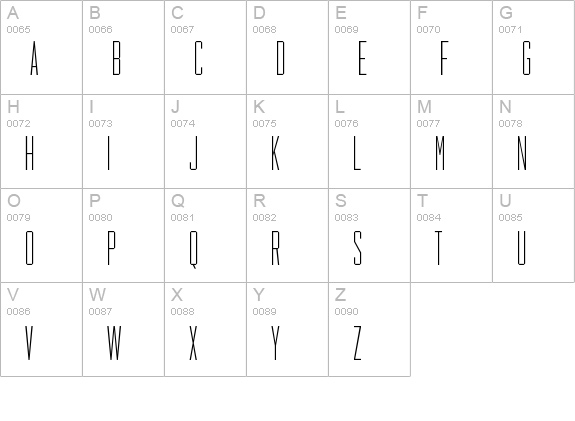
HeraldGothic-Light is a refined, elegant variant in the HeraldGothic typeface family \xE2\x80\x94 well suited to elegant body text, refined sub-headings, and luxury branding.
HeraldGothic-Light is a sleek and modern font that exudes elegance and sophistication. With its clean lines and sharp edges, this font is perfect for creating a bold and striking look in any design project. The light weight of the font adds a touch of delicacy and refinement, making it ideal for use in branding, editorial design, and more. What sets HeraldGothic-Light apart is that it is available for free download at FontsMarket.com. This means that you can easily access this stylish font and use it in your projects without any cost. Whether you are a professional designer looking to add a unique touch to your work or a casual creator in need of a versatile font, HeraldGothic-Light is the perfect choice. Download it today and elevate your designs with this exceptional typeface.